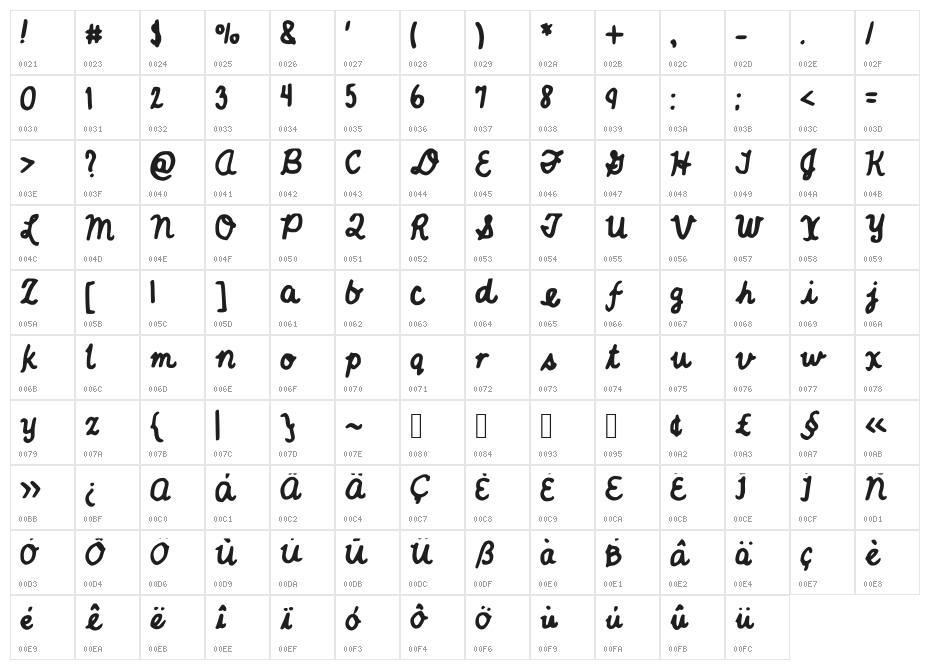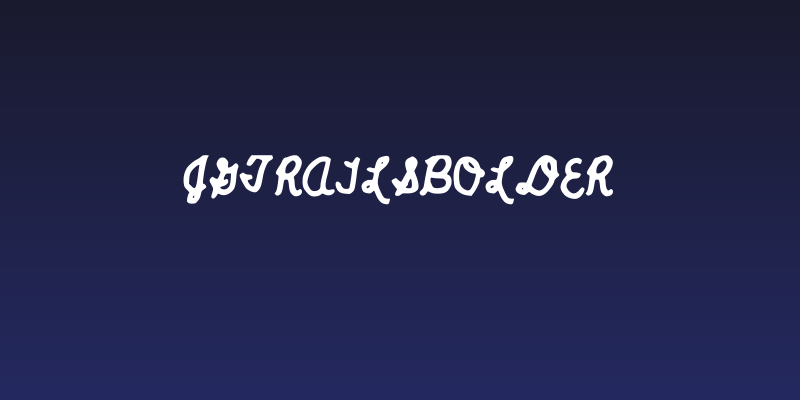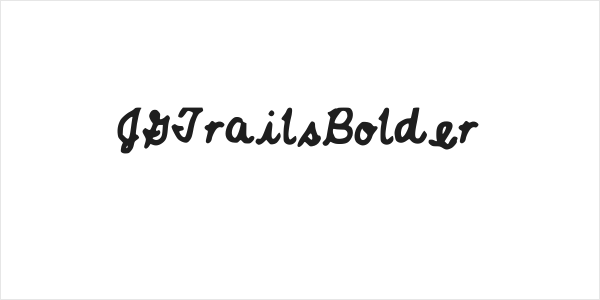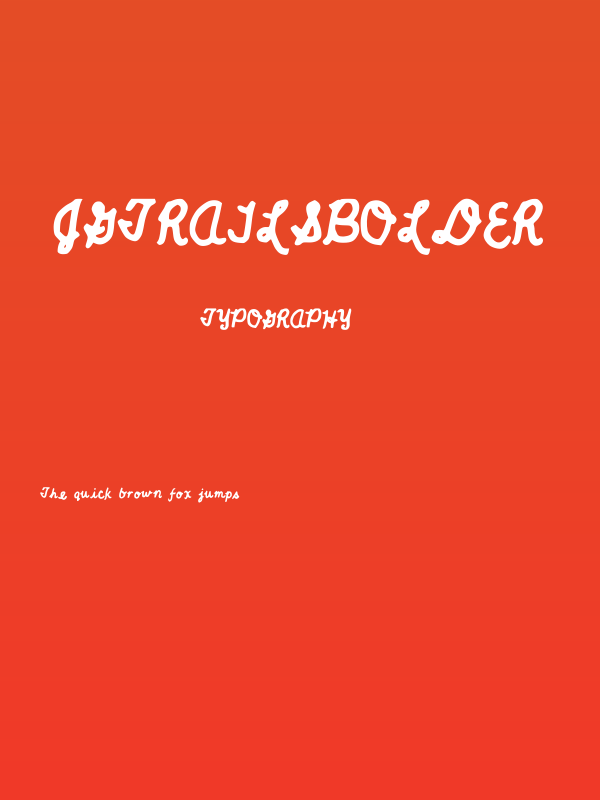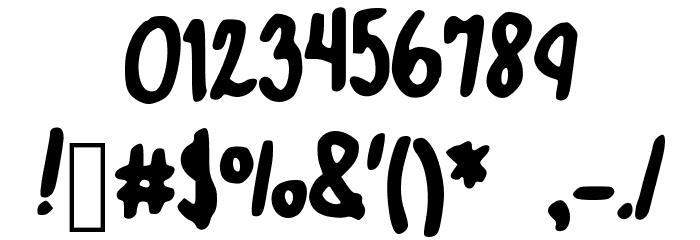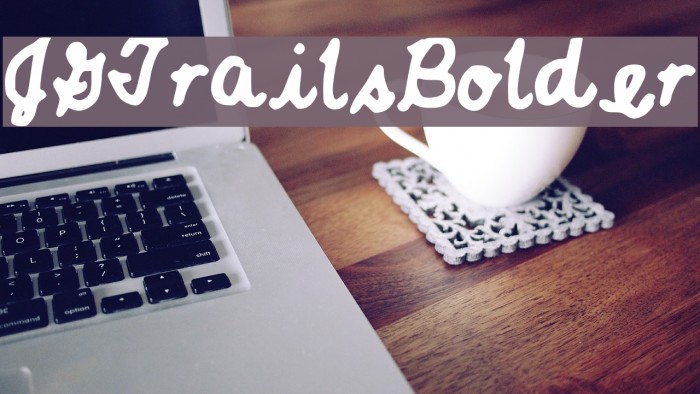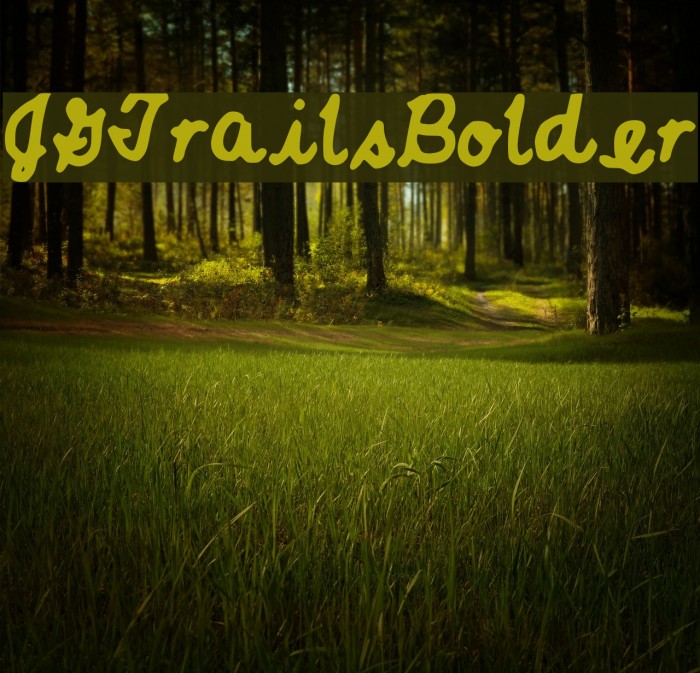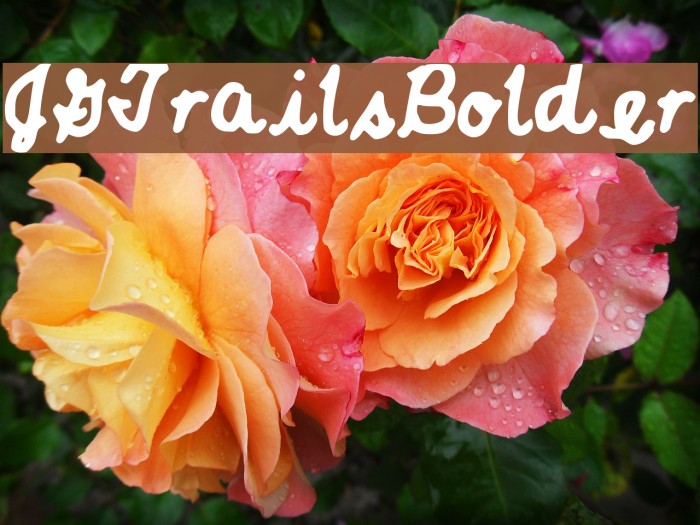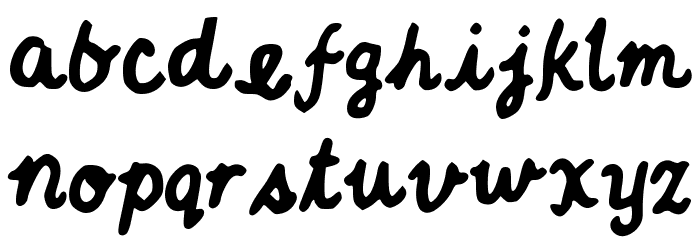
JGTrailsBolder Font
JGTrailsBolder Description
This font exhibits a bold, playful style with a handwritten appearance. The letters are rounded and slightly irregular, giving it a casual and friendly feel. The uppercase and lowercase letters maintain a consistent flow, with the uppercase being slightly more structured. Numbers and special characters follow the same playful design, ensuring uniformity across all elements. The boldness of the strokes adds to its legibility, making it suitable for various creative applications.
| Proposed Projects | Ideal for greeting cards, children's books, playful branding, and casual invitations. |